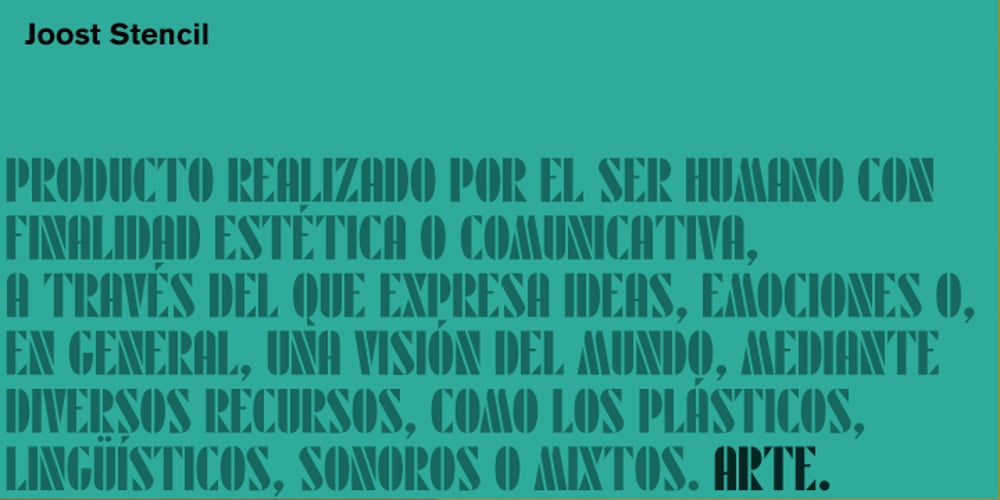
Joost Font Family was designed by José Manuel Urós and published by Type-Ø-Tones. Joost contains 5 styles and family package options. This is a relaunch version of Joost, a milestone of the Type-Ø-Tones catalogue. This revival of Joost Schmidt’s typeface now has a capital set, a new weight and some OpenType features. Not to mention alternate glyphs for M, N, Ñ, and W characters. The inspiration came from the ‘bauhaus dessau im gewerbemuseum’ basel exhibition poster, designed in 1929 by Franz Ehrlich after a sketch by Joost Schmidt.